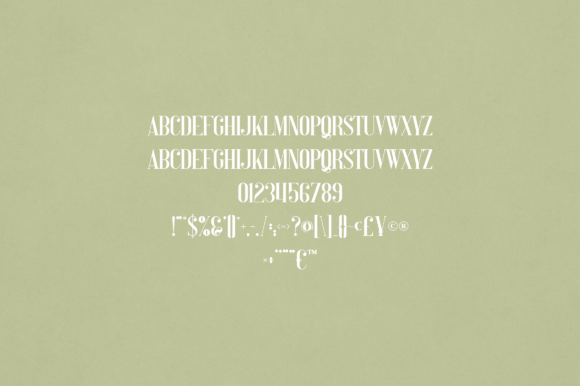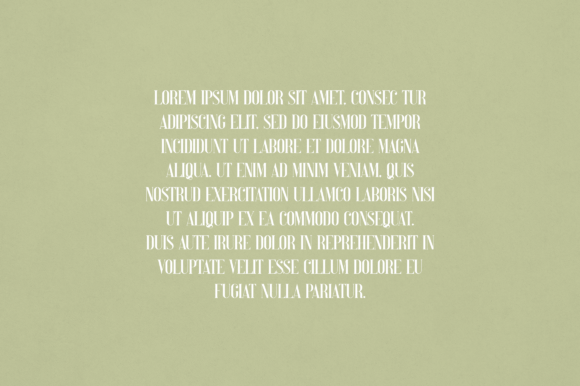
Clea Font: Elevate Your Typography with Elegance and Versatility
In the world of design, typography plays a crucial role in conveying messages, expressing creativity, and making a lasting impression. For designers and crafters seeking to add a touch of sophistication and uniqueness to their projects, the Clea font is an exceptional choice. This elegant and versatile font is designed to enchant every logo, branding, headline, or plain text, making it perfect for a wide range of applications.
The Beauty of Clea Font
Clea is more than just a font – it’s a statement piece that can elevate your typography to new heights. Its elegant design ensures that your text stands out, whether it’s used in logos, branding materials, headlines, or plain text. The font’s versatility allows it to seamlessly integrate into various design projects, including branding projects, home-ware designs, product packaging, magazine headers, and even as a stylish text overlay to any background image.
For designers and crafters, finding the right font can be a daunting task. Clea font, however, checks all the boxes. Its unique and elegant design makes it an ideal choice for:
- Branding Projects: Establish a strong brand identity with Clea’s distinctive style.
- Home-ware Designs: Add a touch of sophistication to your home-ware designs with this versatile font.
- Product Packaging: Make your product stand out on store shelves with Clea’s elegant typography.
- Magazine Headers: Create eye-catching magazine headers that grab readers’ attention.
- Text Overlays: Use Clea as a stylish text overlay to add depth and interest to any background image.
Why Choose Clea Font?
With so many fonts available, why choose Clea? Here are a few compelling reasons:
- Uniqueness: Clea’s elegant design sets it apart from more common fonts, ensuring your project stands out.
- Versatility: This font can be used in a wide range of applications, from logos and branding to packaging and magazine headers.
- Elegance: Clea adds a touch of sophistication to any project, making it perfect for designers and crafters seeking to create high-end designs.
- Easy to Read: Despite its elegant design, Clea remains easy to read, making it suitable for both headings and body text.
Tips for Using Clea Font
To get the most out of Clea font, consider the following tips:
- Pair with Complementary Fonts: Combine Clea with simpler fonts to create visual interest and hierarchy in your designs.
- Experiment with Colors: Clea looks stunning in a variety of colors, so don’t be afraid to experiment and find the perfect hue for your project.
- Play with Sizes: Use Clea in different sizes to create visual hierarchy and add depth to your designs.
In conclusion, Clea font is an exceptional choice for designers and crafters seeking to elevate their typography with elegance and versatility. Its unique design, versatility, and elegance make it perfect for a wide range of applications, from branding projects to product packaging. With Clea, you can create truly unique and memorable designs that leave a lasting impression.